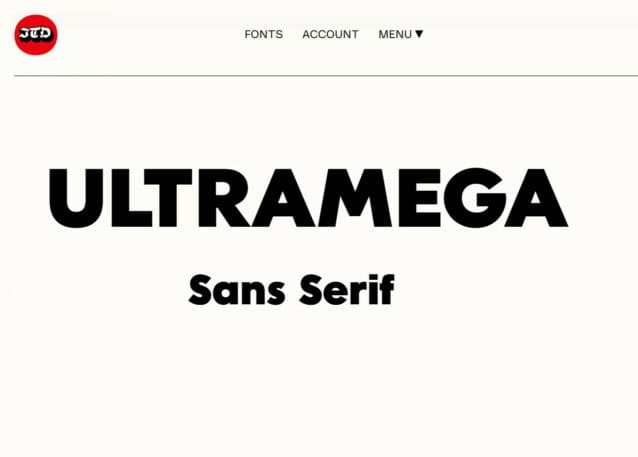
Ultramega Font Family
Ultramega Font Family is a versatile geometric sans-serif font designed for a wide range of applications. Its clean and direct style makes it suitable for both display purposes and intermediate length texts. The font’s simplicity and open personality contribute to its versatility.